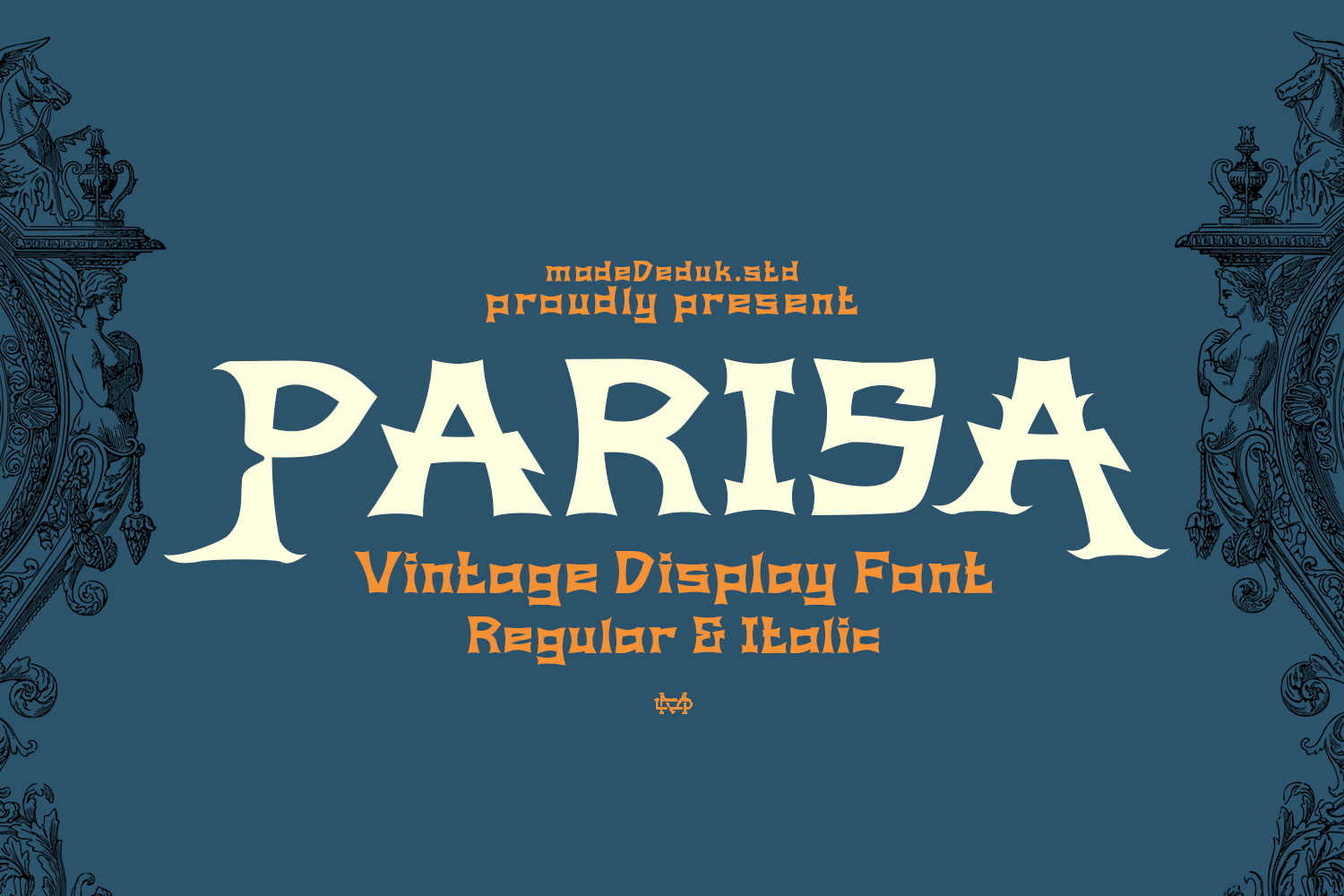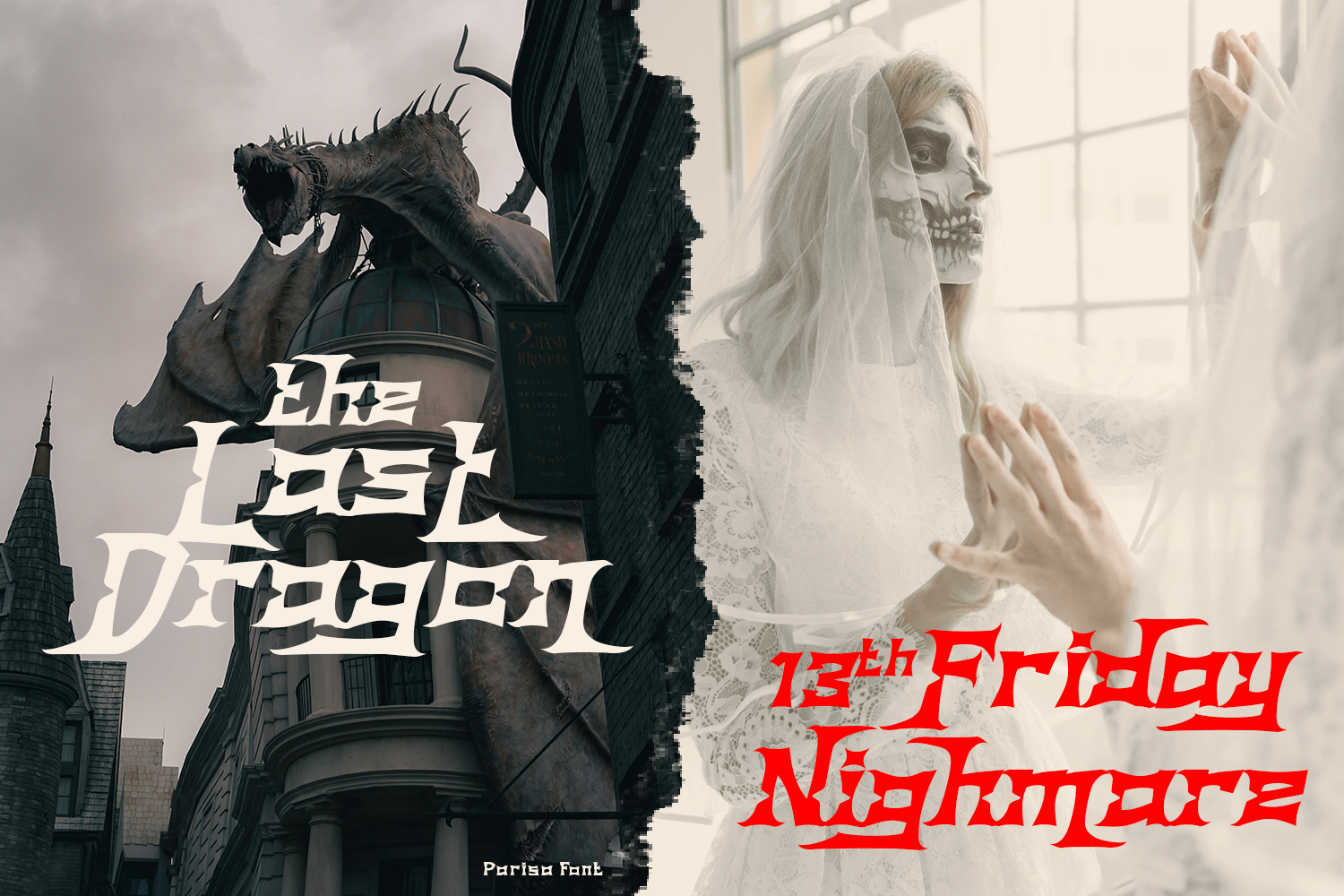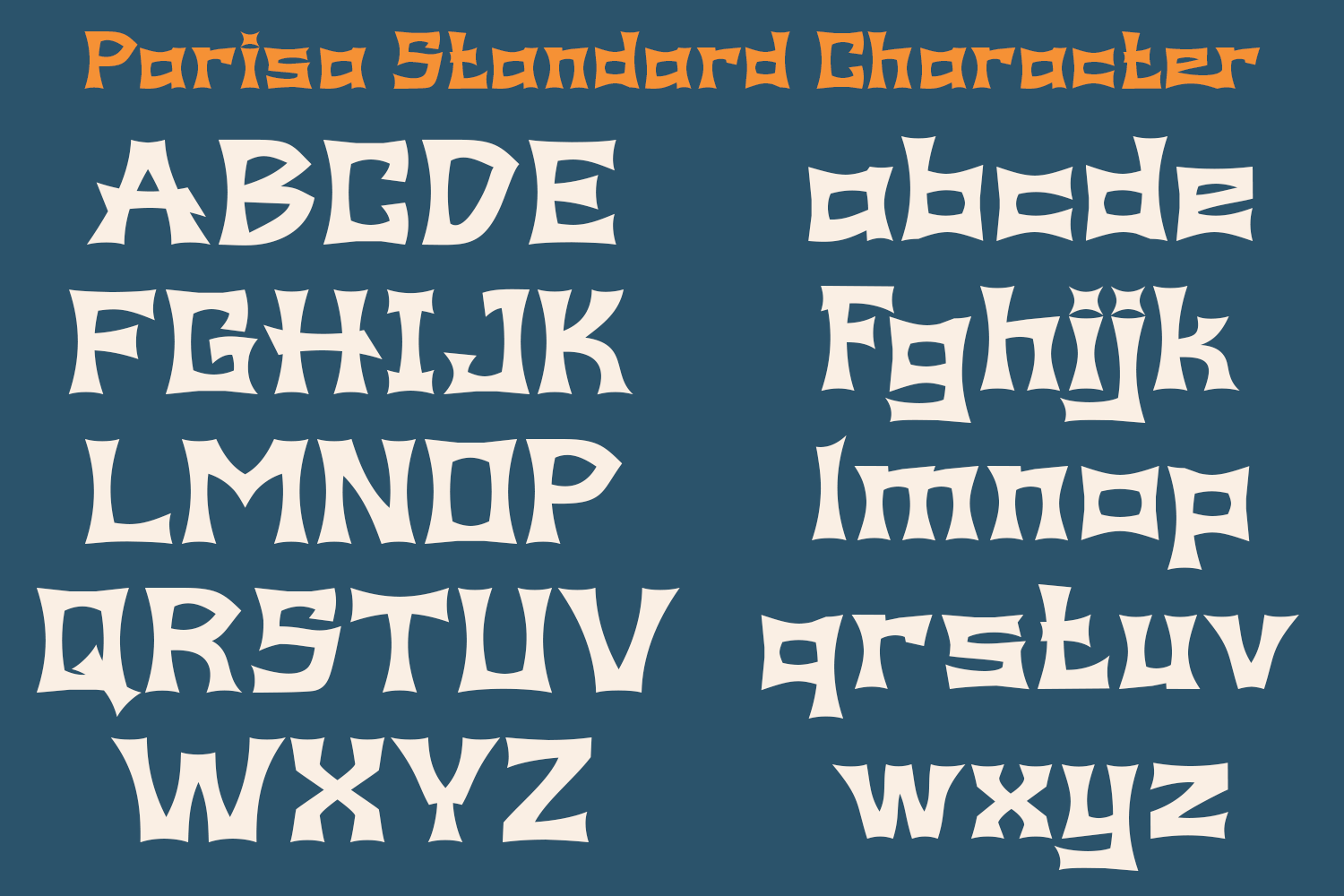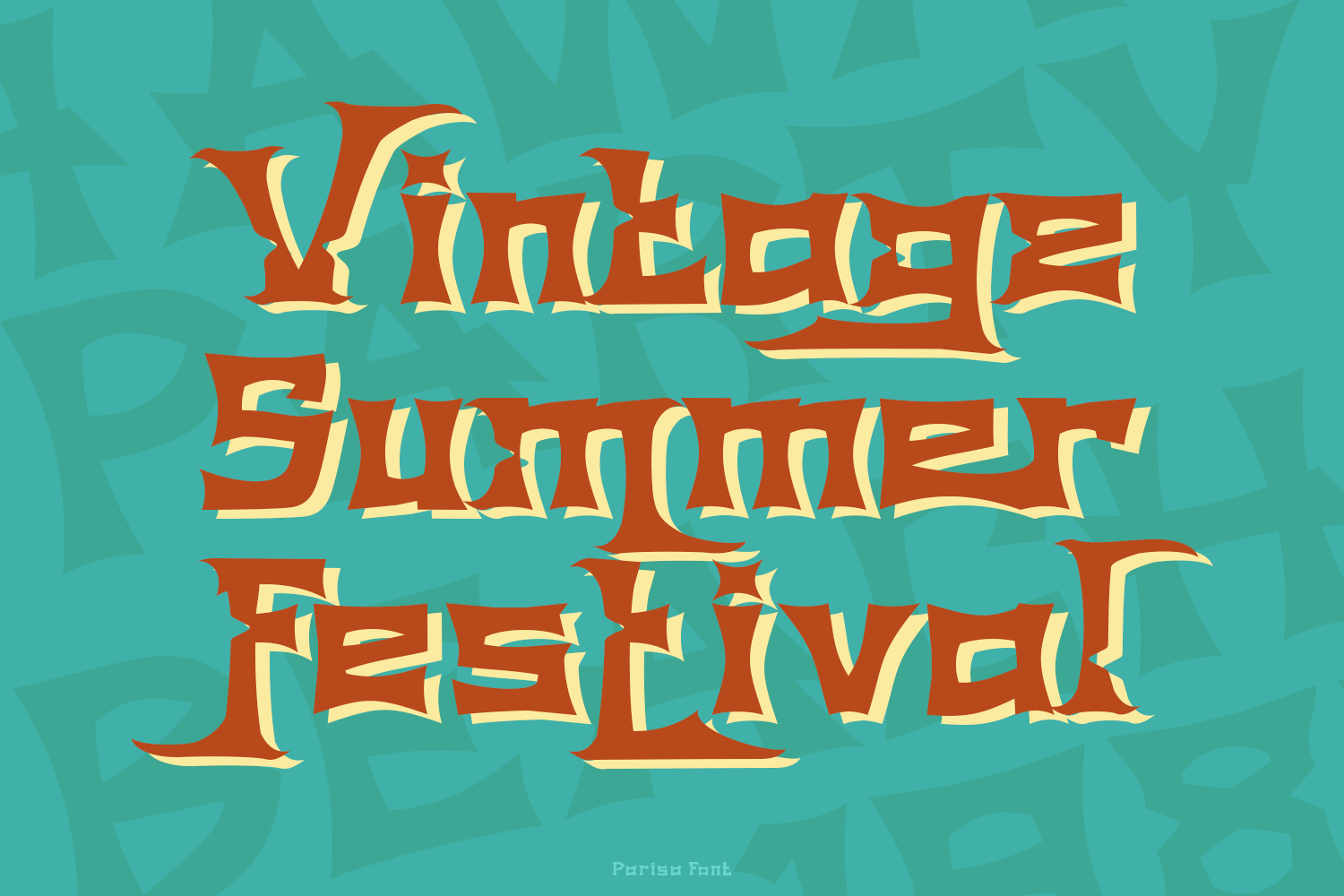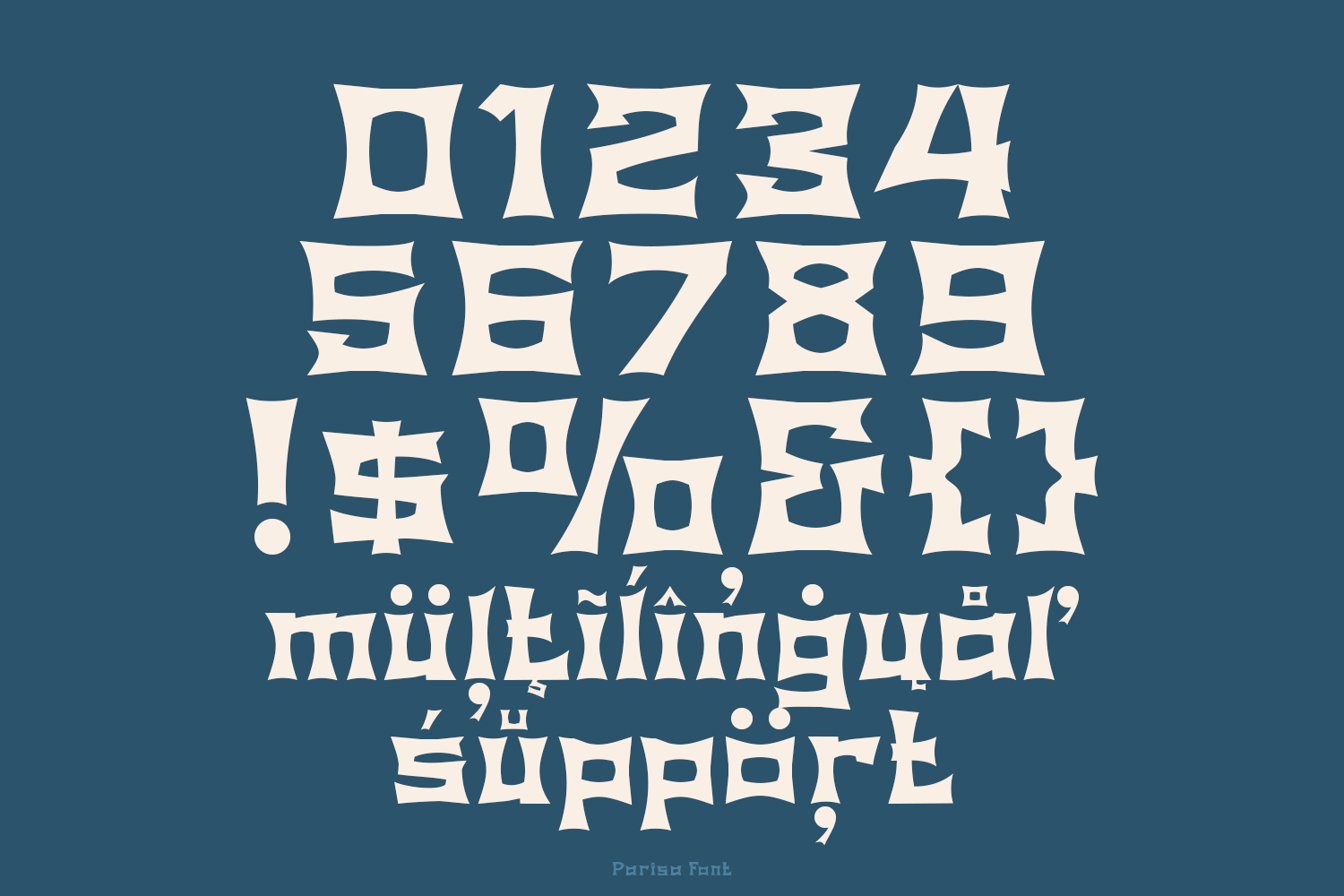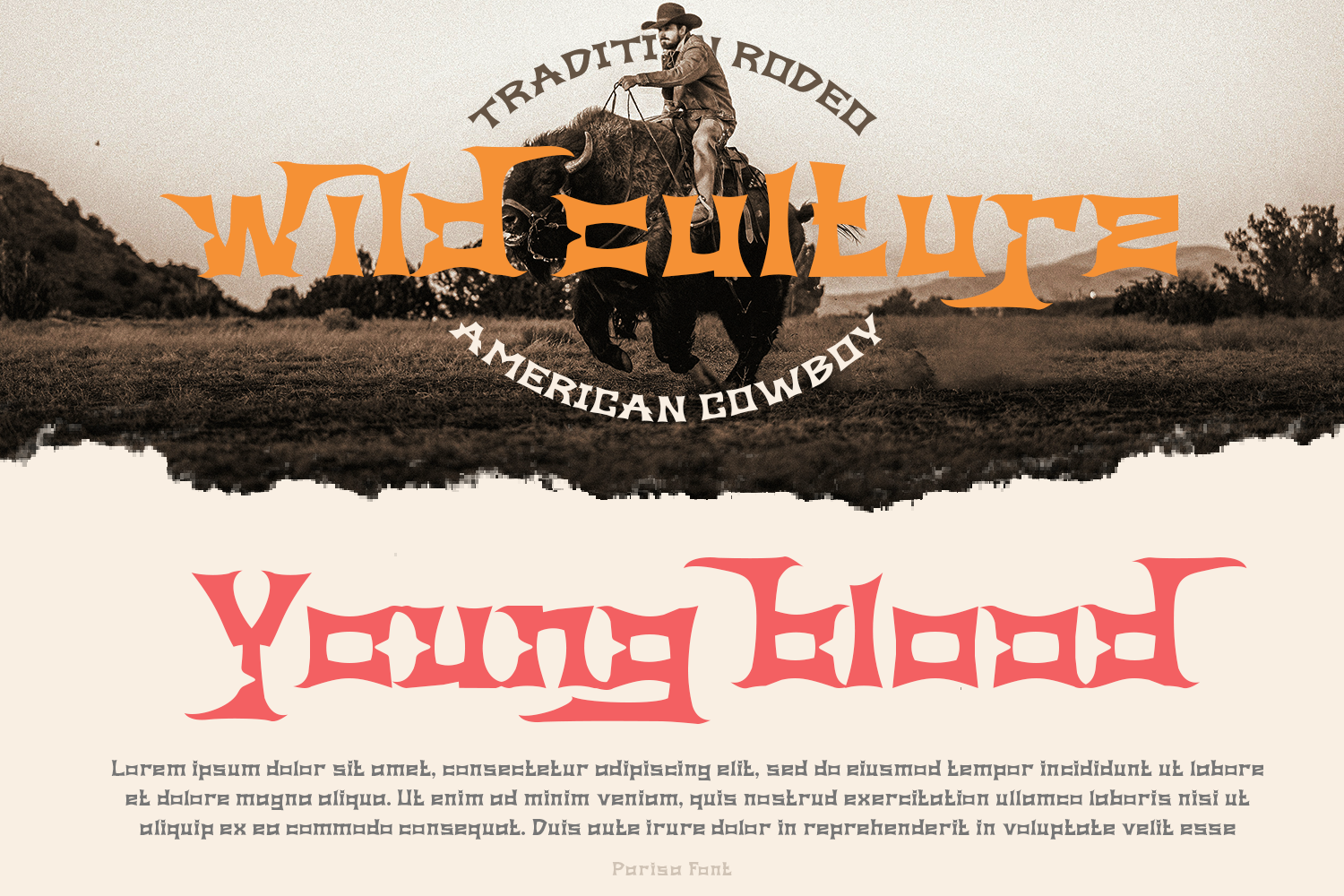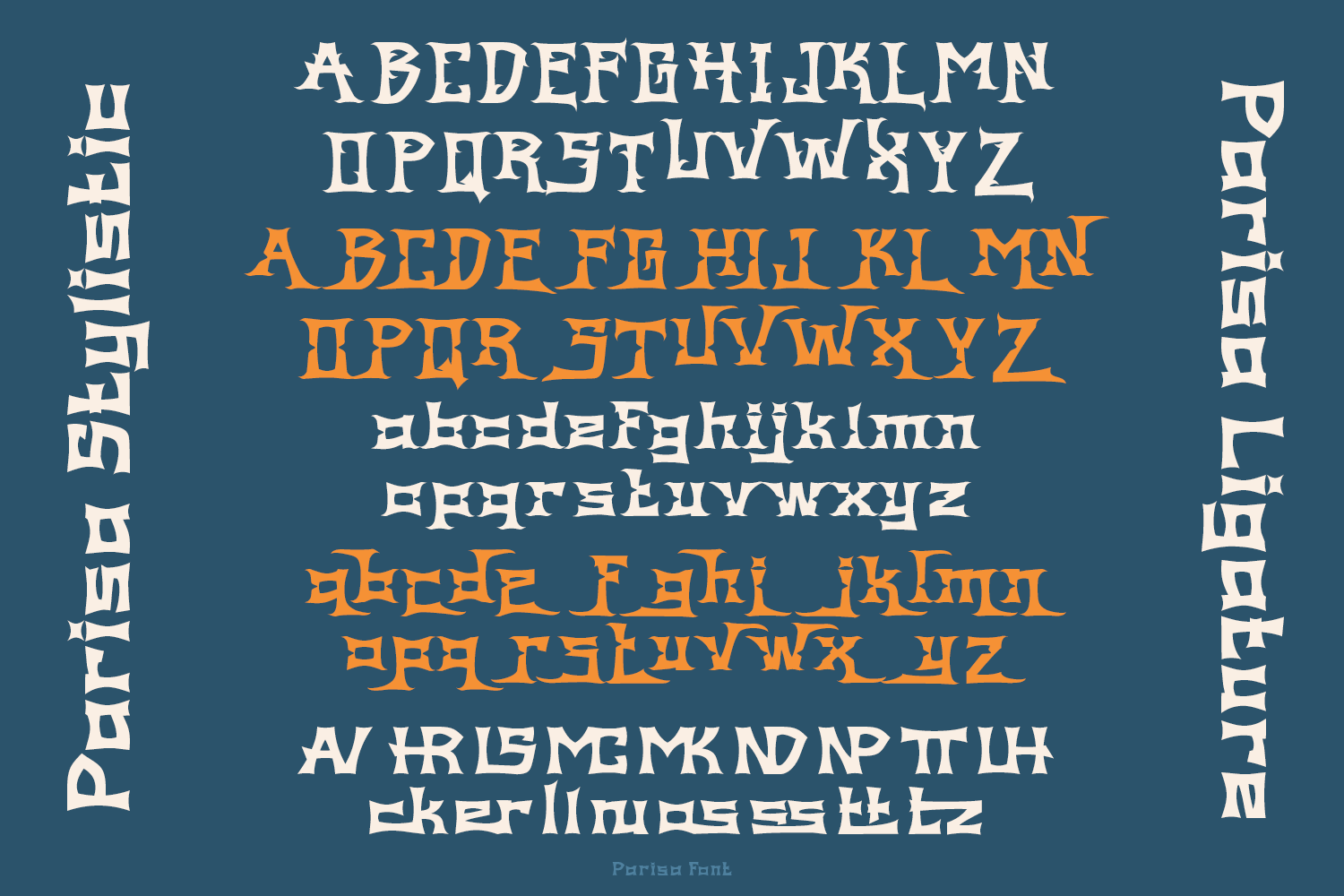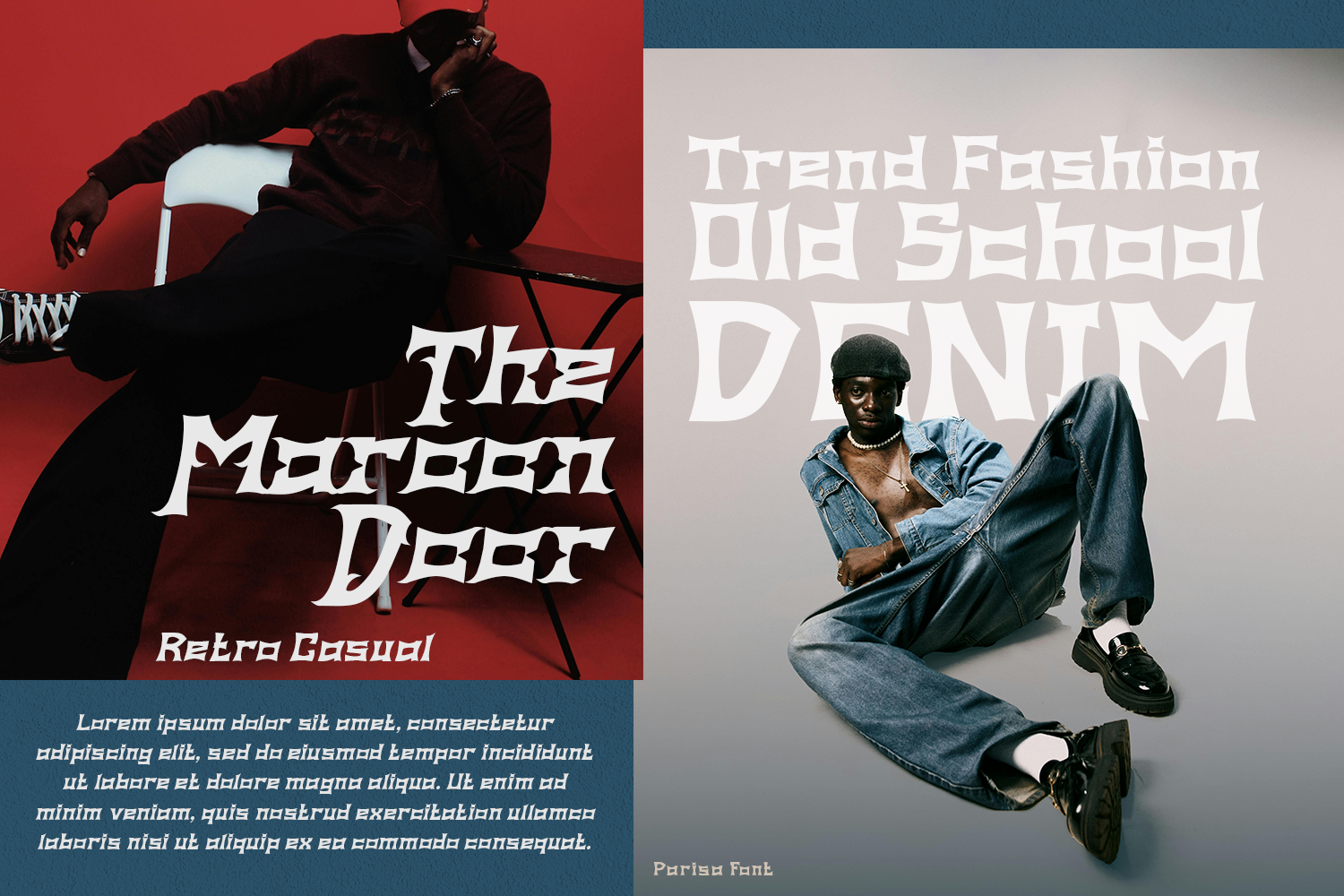
Parisa is a display font inspired by the empire era which will bring your project a strong and powerful touch, come with single weight, legible and expressive shapes. Browse through all the previews and get as inspired as I was when creating this font. This font is very perfect for many display purposes in your product design if you want a vintage and classic style, elegant and luxury. Such as book covers, product labels, logos badges, drink bottles, tattoo shops, coffee shops, fashion products, etc.